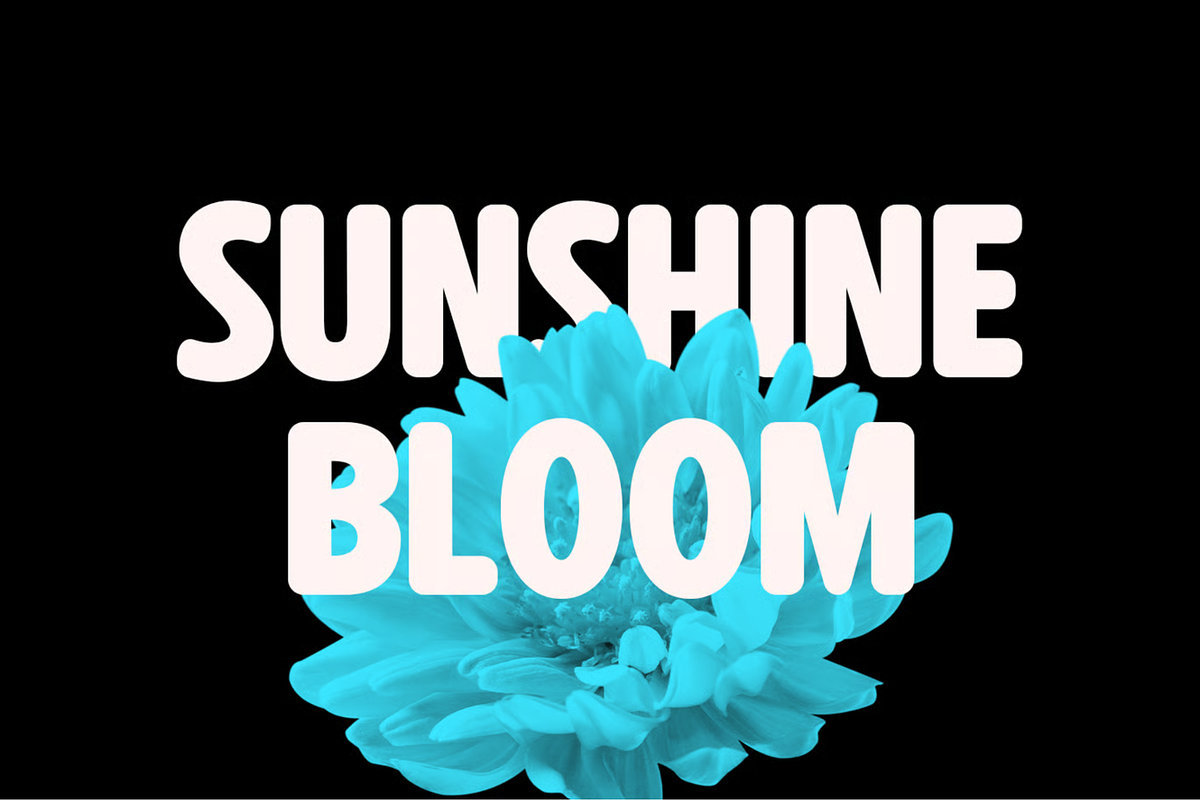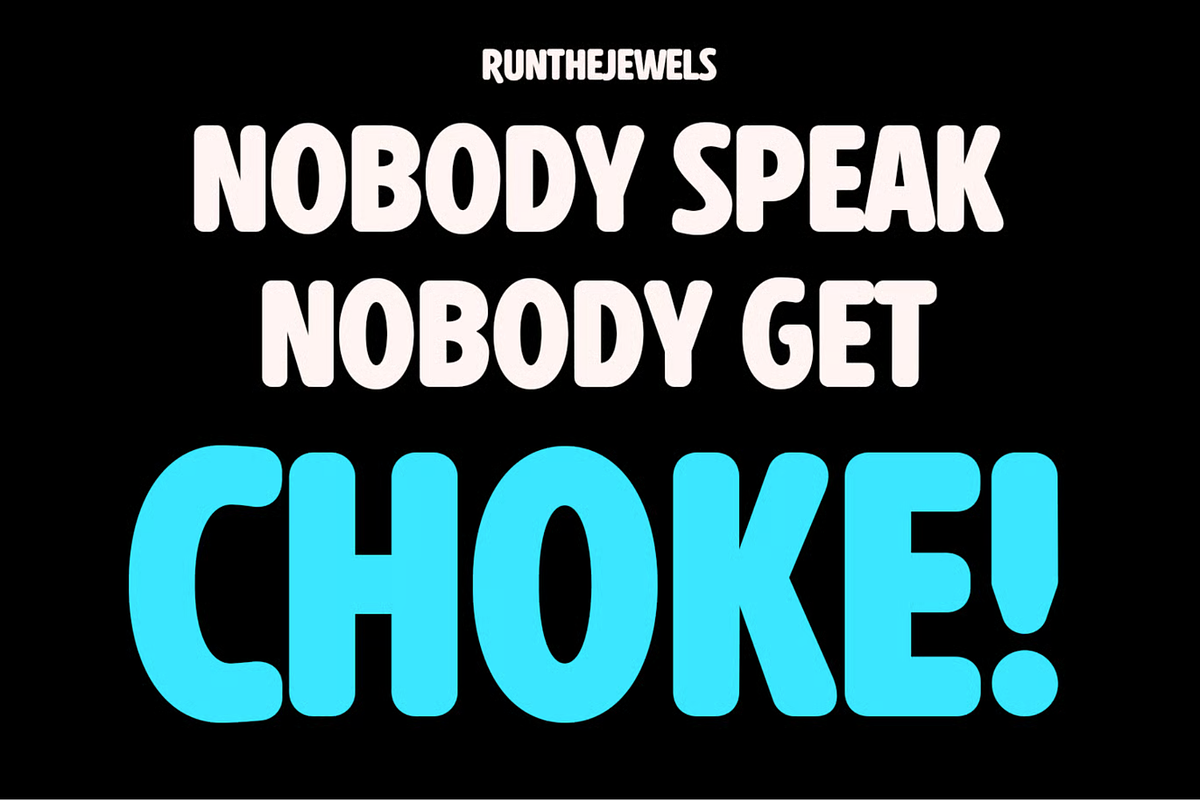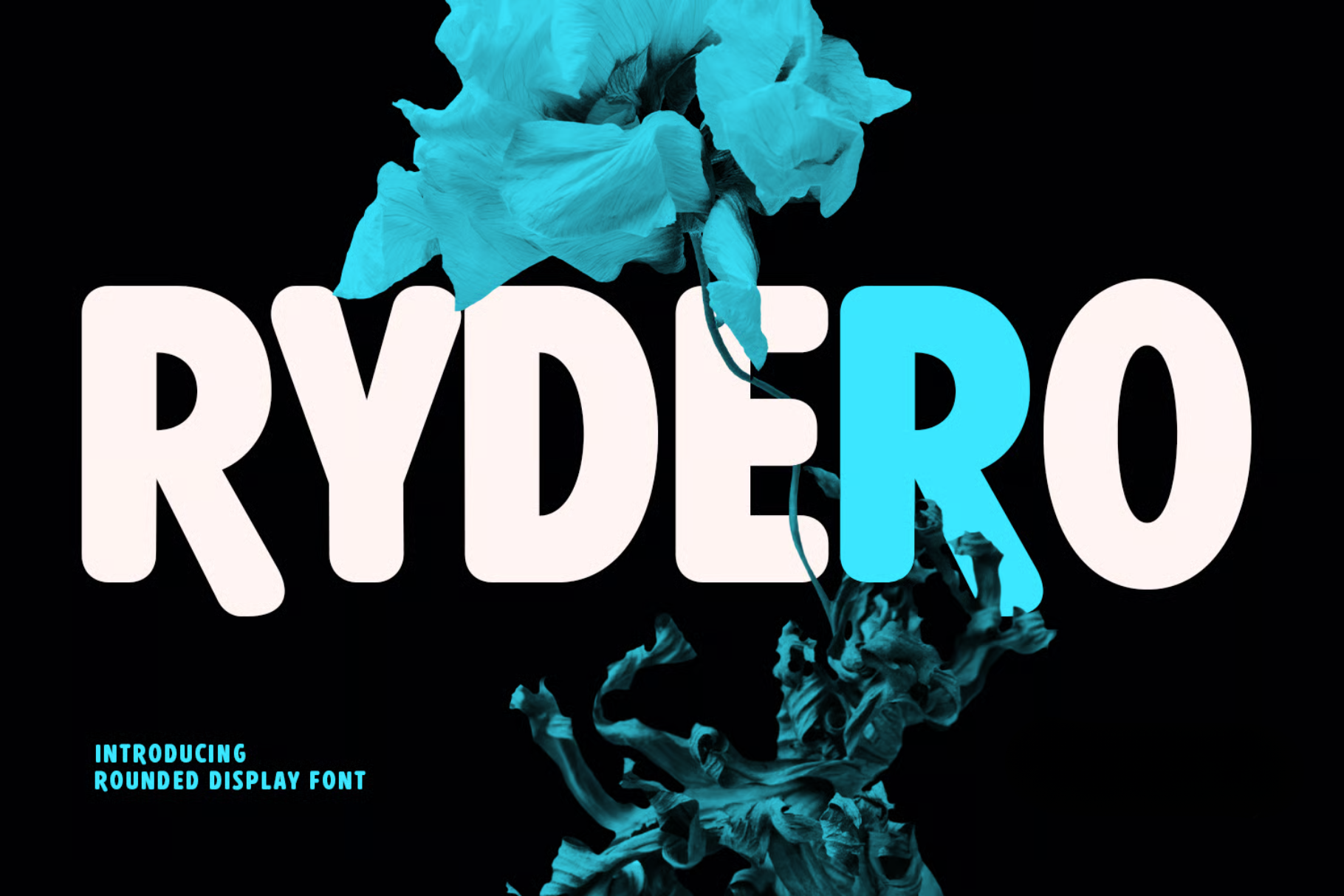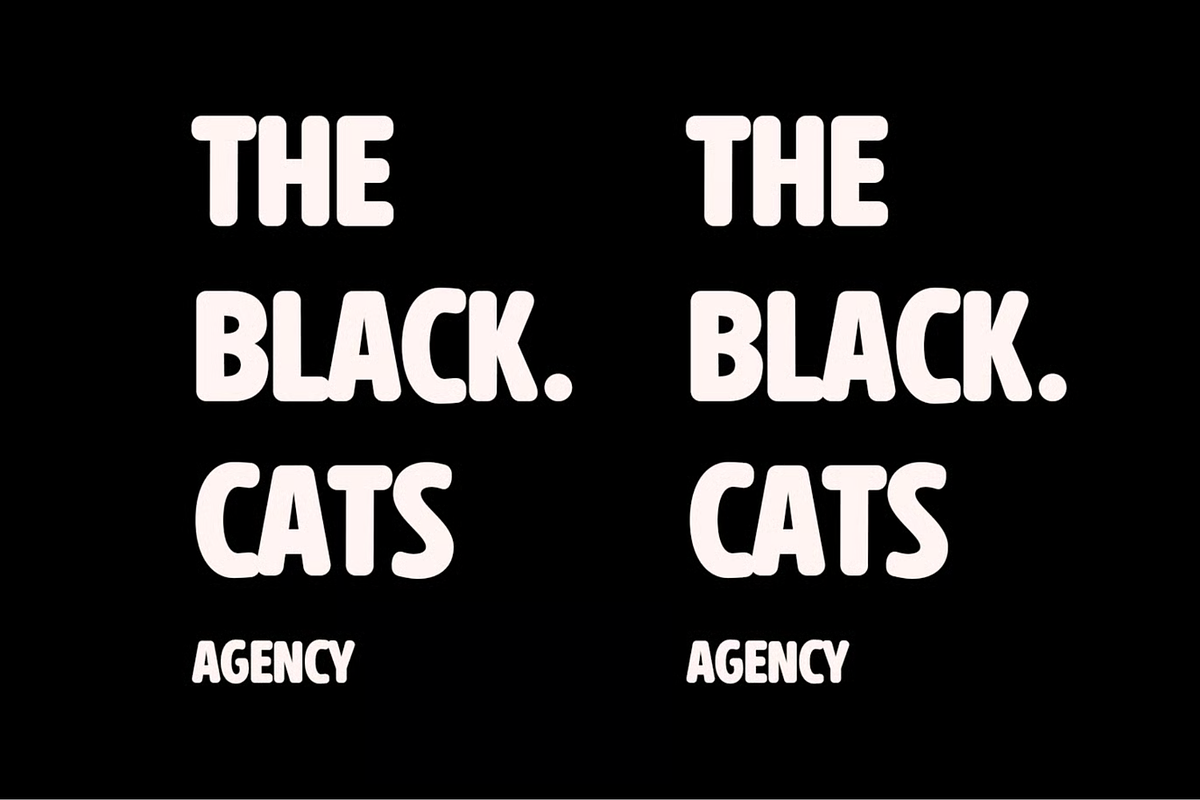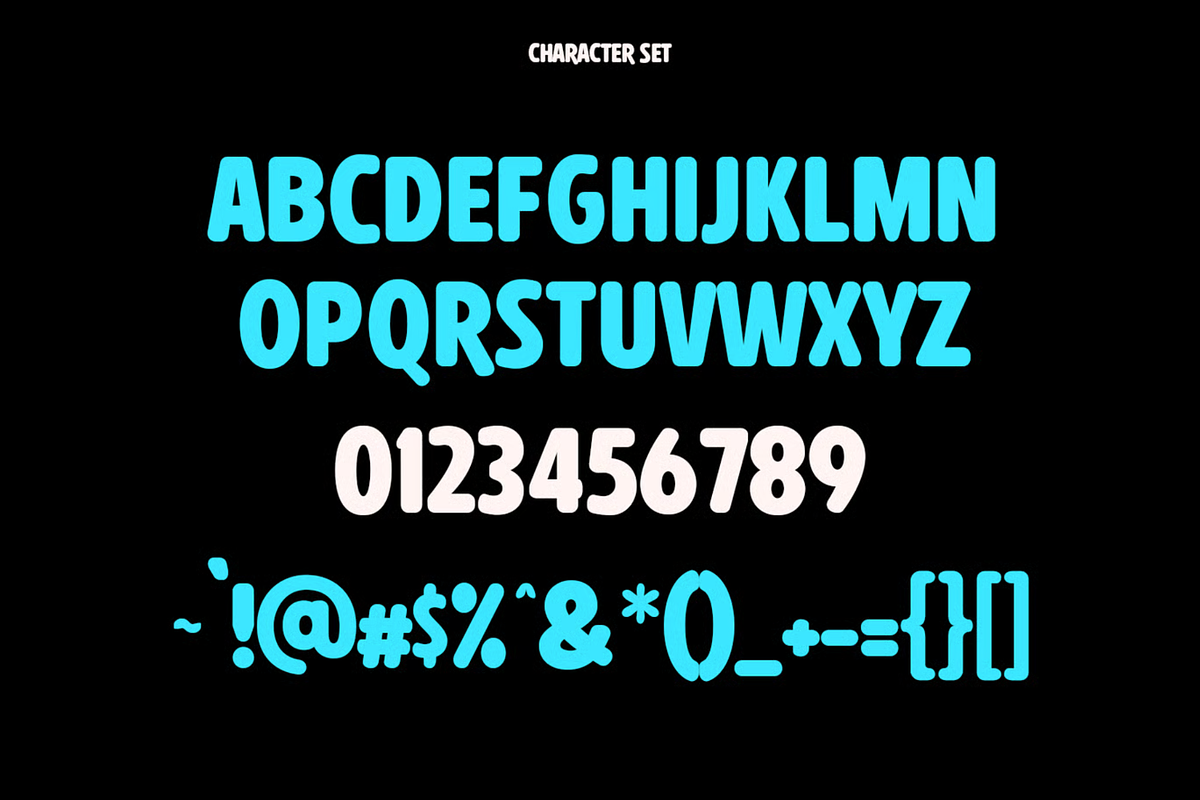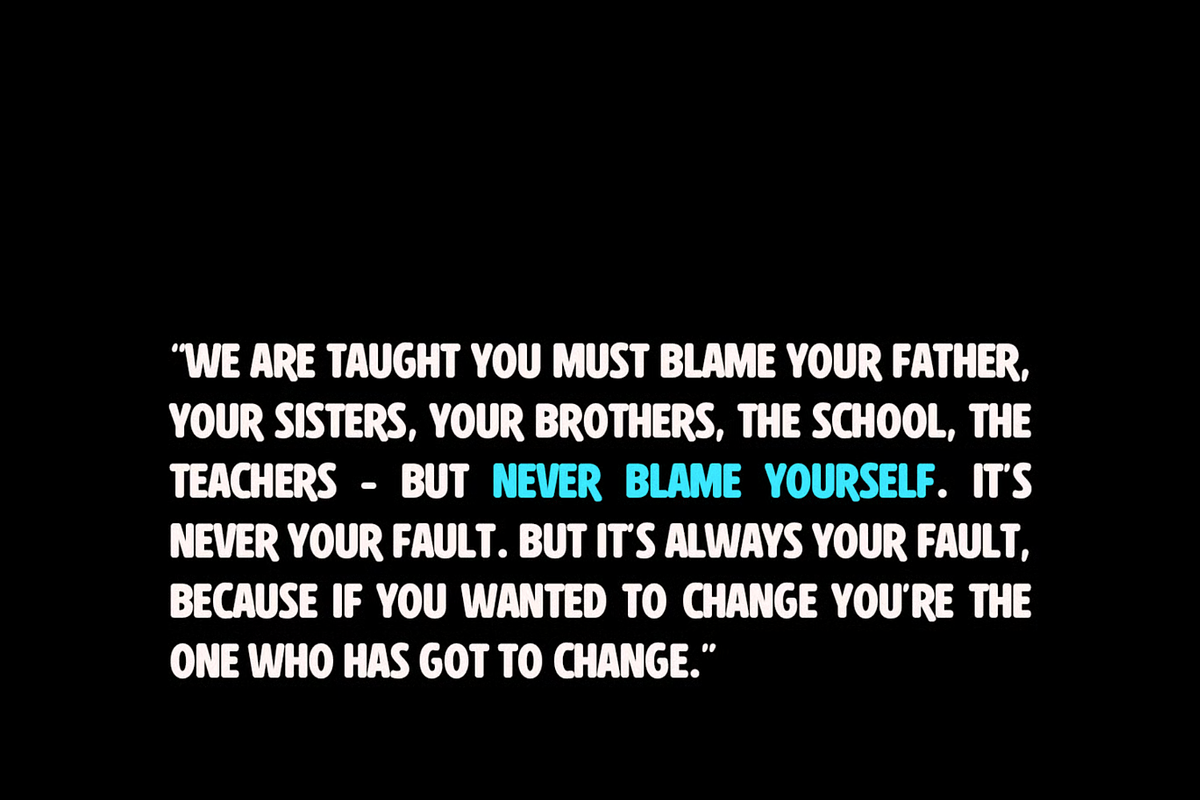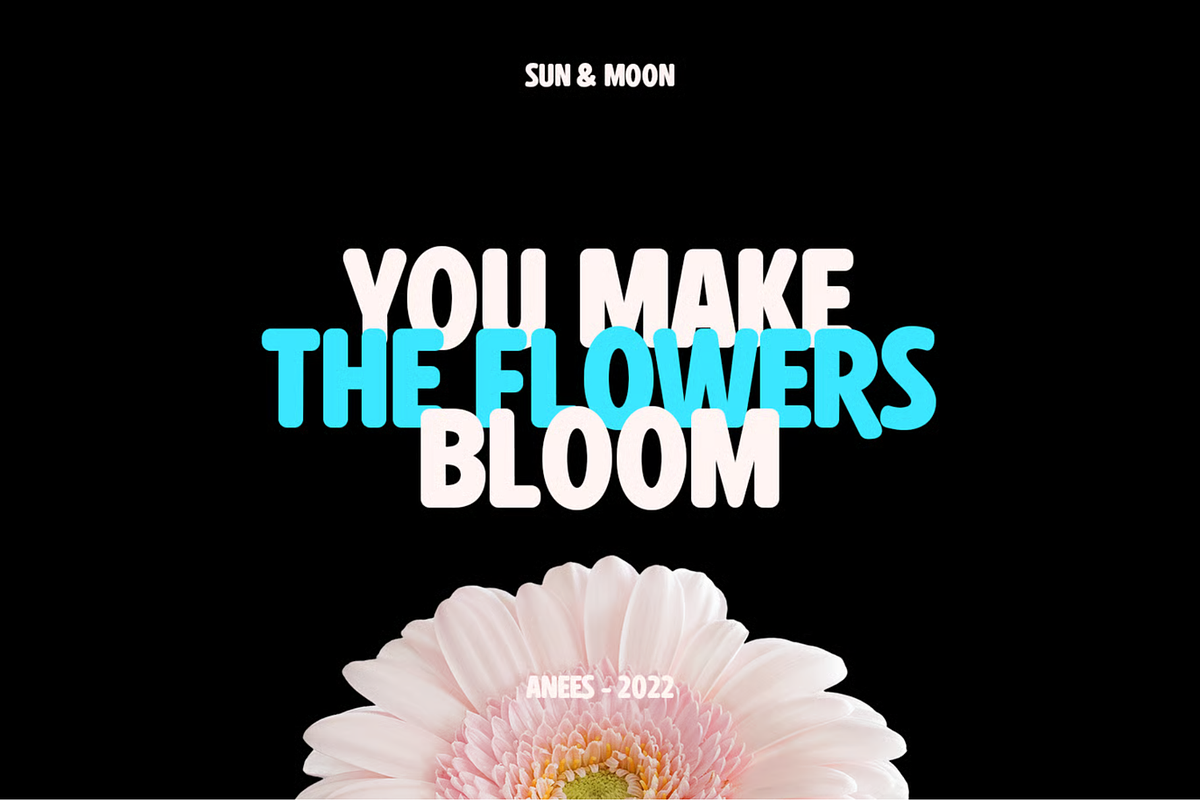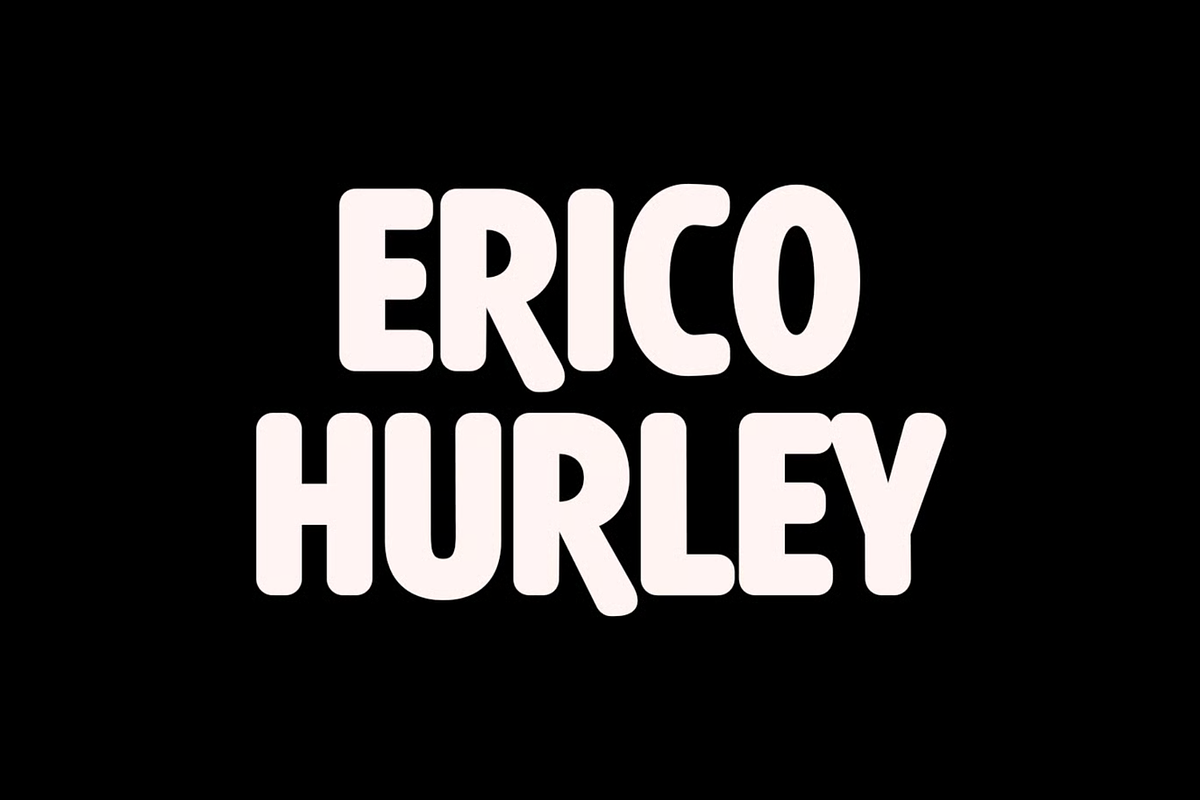
Rydero Soft Sans Display Font
Rydero is softest sans serif font ever character with a bit of ligatures and alternates. To give you an extra creative work. Rydero font support multilingual more than 100+ language. This font is good for logo design, Social media, Movie Titles, Books Titles, a short text even a long text letter and good for your secondary text font with sans or serif. Make a stunning work with Rydero font.